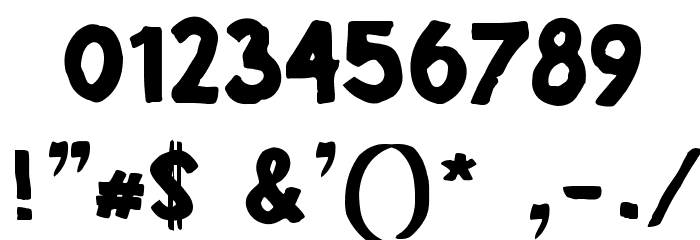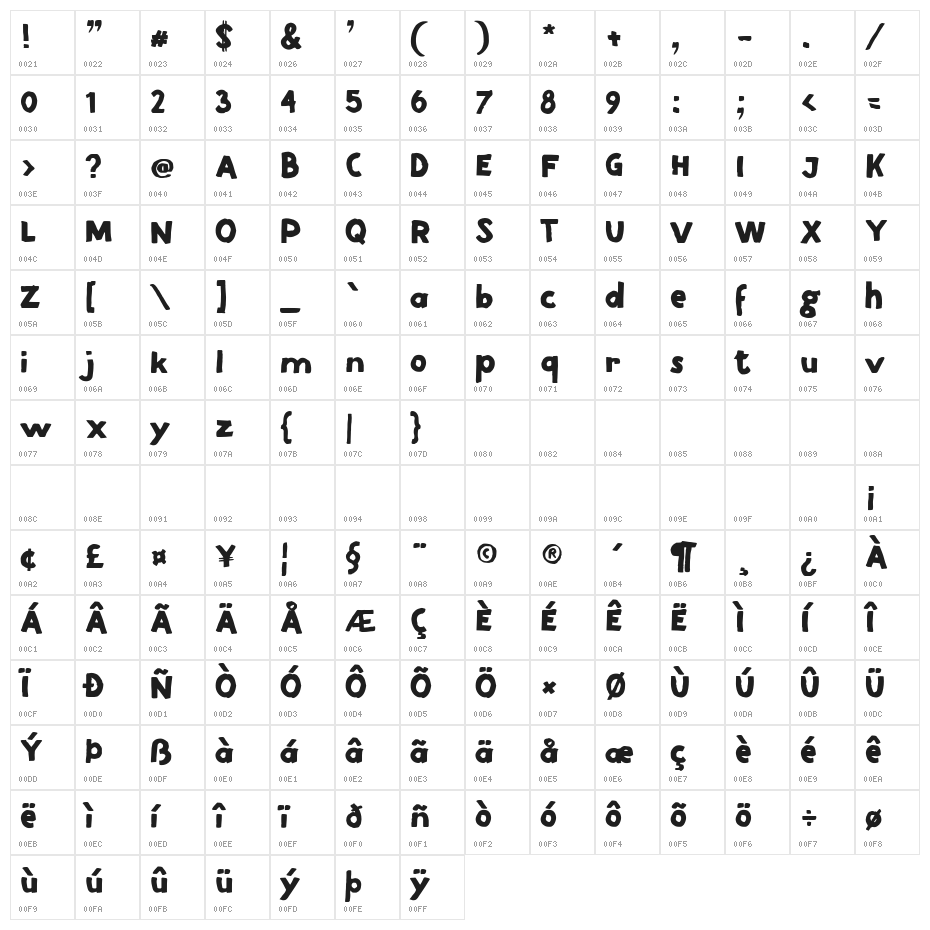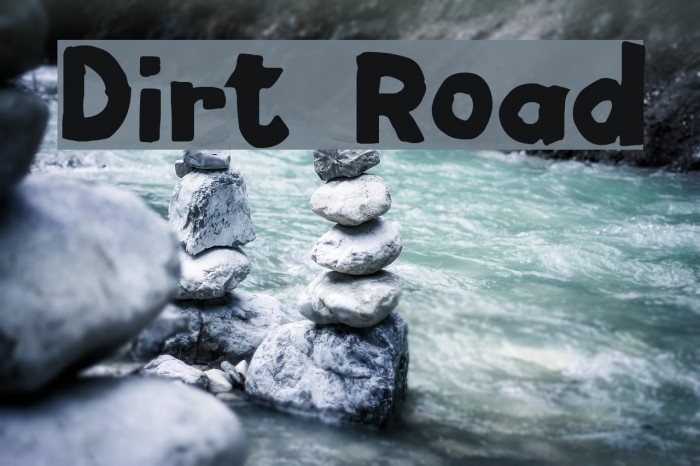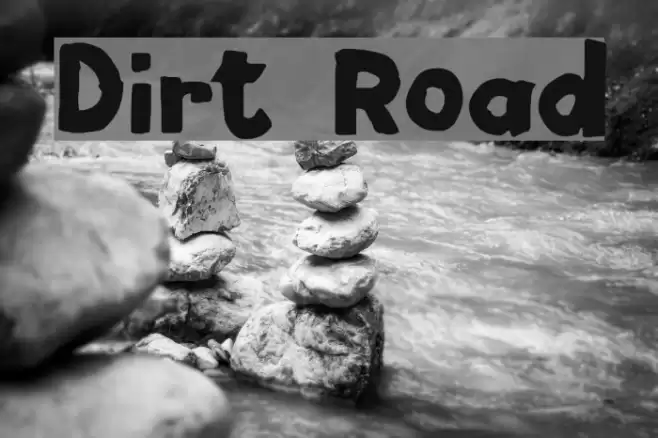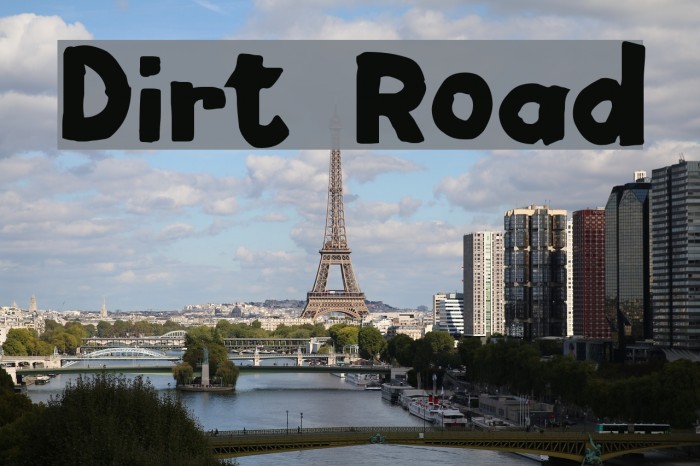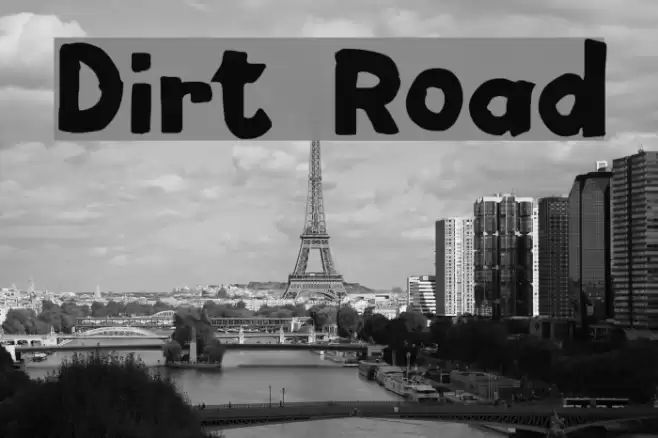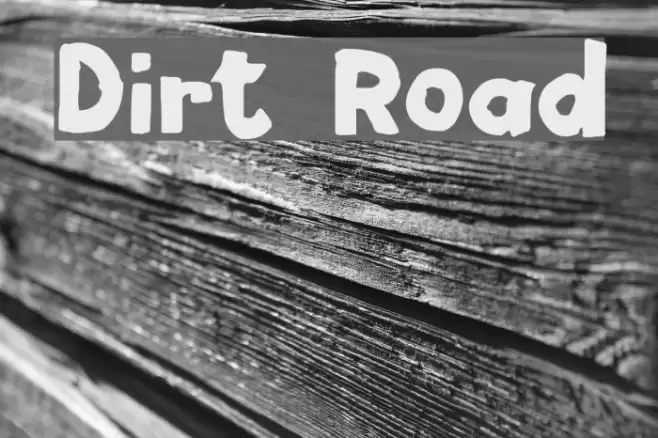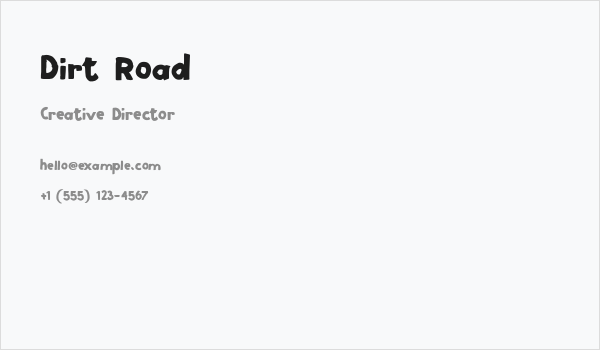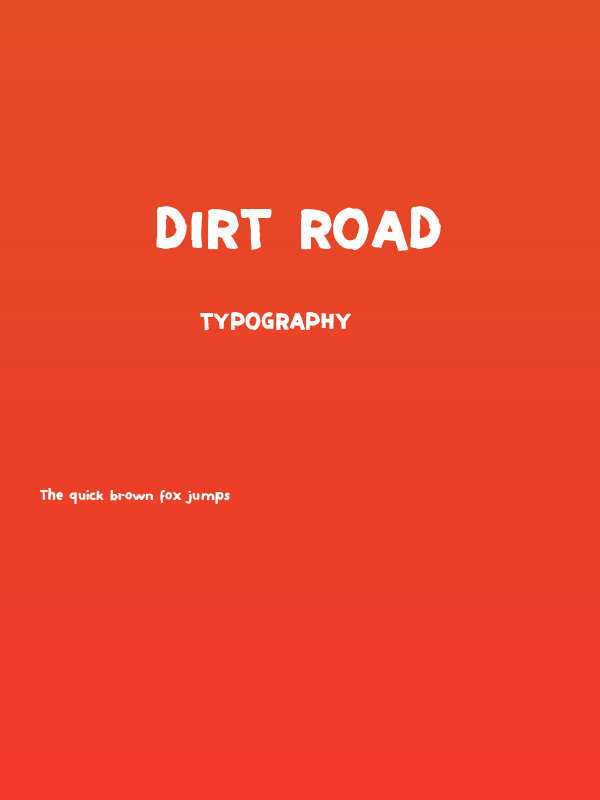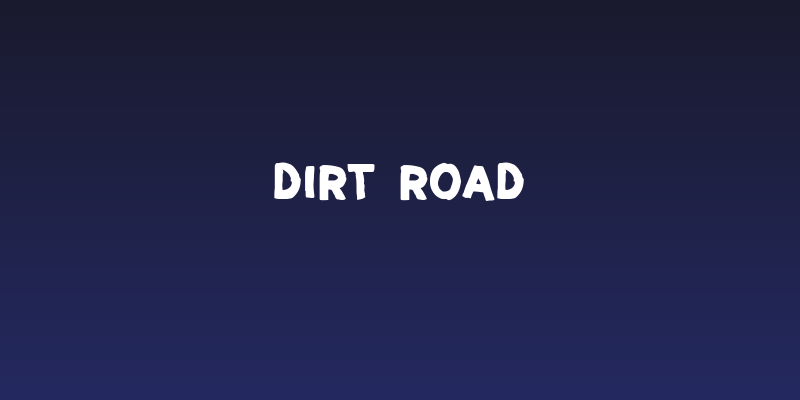
Dirt Road Font
Dirt Road Description
This font exudes a rugged and playful charm, characterized by its bold and uneven strokes that mimic the look of hand-painted signs. The letters have a slightly irregular shape, giving them a dynamic and lively appearance. The uppercase and lowercase characters maintain a consistent style, with rounded edges and a slightly distressed texture that adds to its rustic appeal. The numbers and special characters follow the same design ethos, ensuring a cohesive look across all text elements. This font is perfect for projects that require a touch of whimsy and authenticity, such as branding for artisanal products or outdoor adventure themes.
| Overall Style | Rustic, Playful |
| Proposed Projects | Ideal for branding, signage, posters, and packaging for artisanal or outdoor-themed products. |